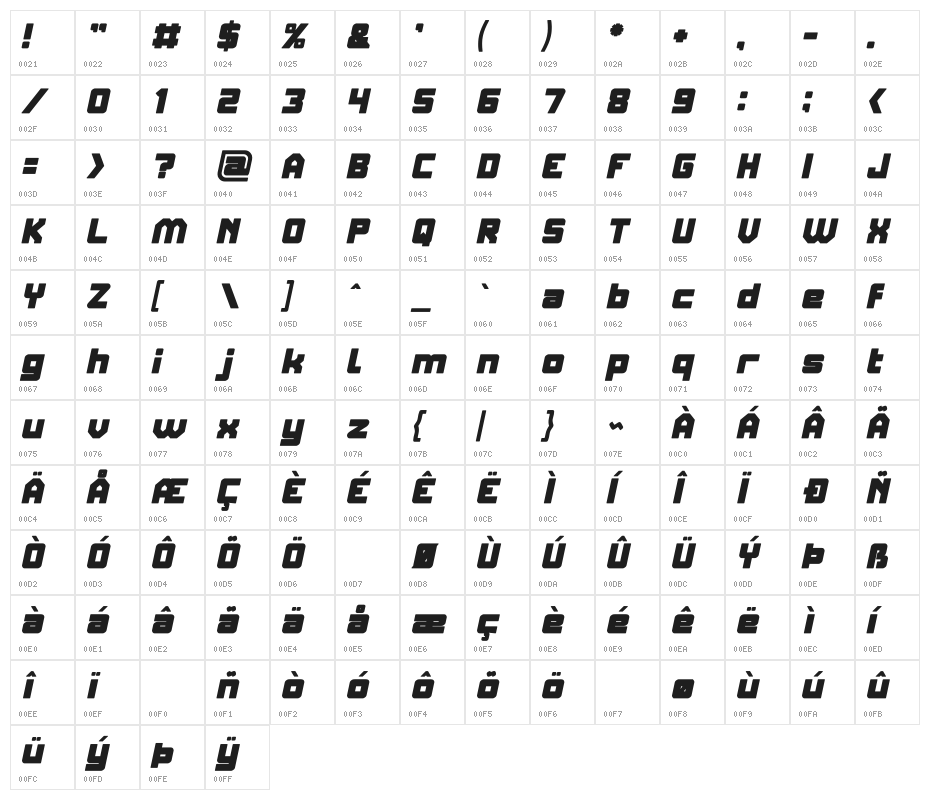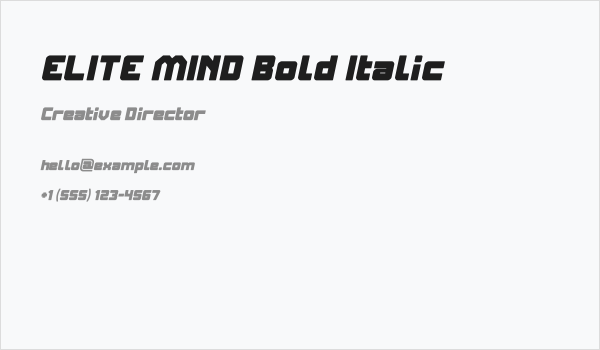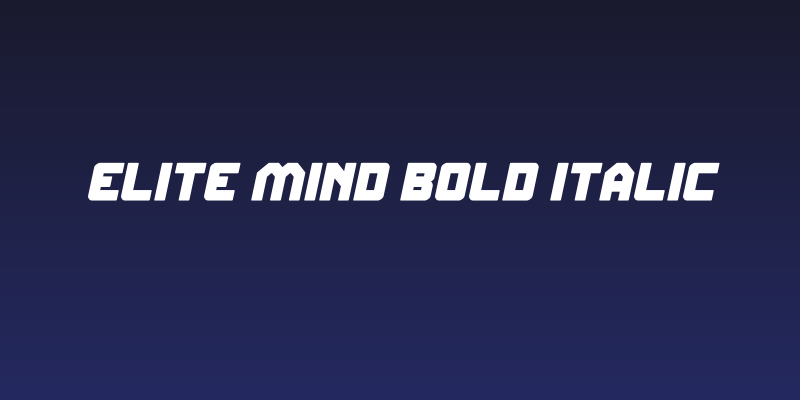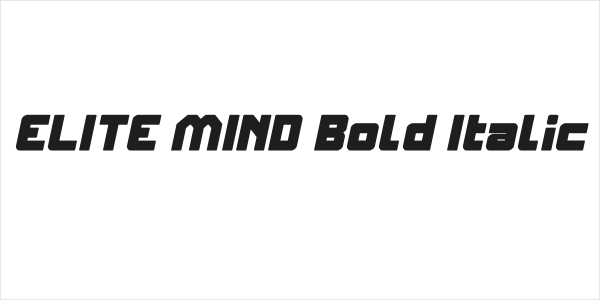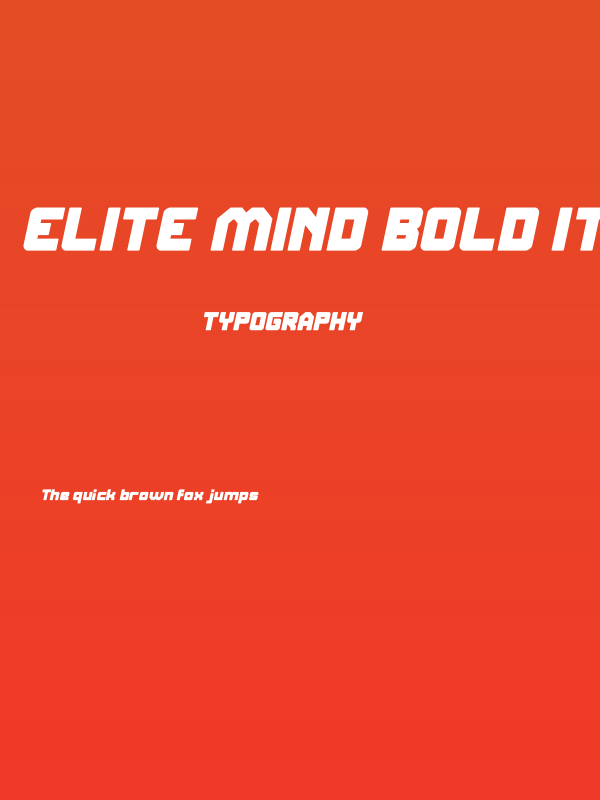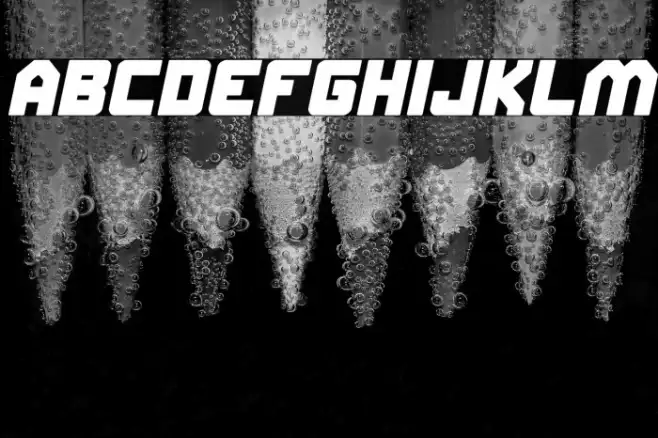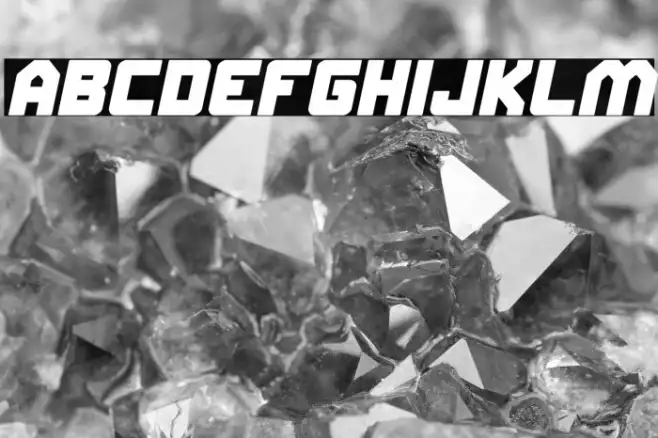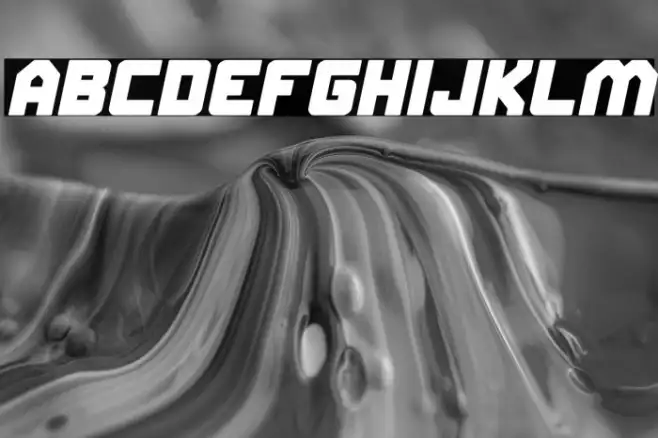
ELITE MIND Bold Italic Font
ELITE MIND Bold Italic Description
This font features a bold and italicized style with a modern and dynamic appearance. The characters are designed with a strong geometric structure, giving them a robust and impactful look. The uppercase and lowercase letters maintain a consistent slant, enhancing the italic effect. The numerals and special characters follow the same bold and slanted design, ensuring uniformity across all glyphs. The font's thick strokes and angular edges contribute to its assertive and energetic feel, making it suitable for attention-grabbing designs.